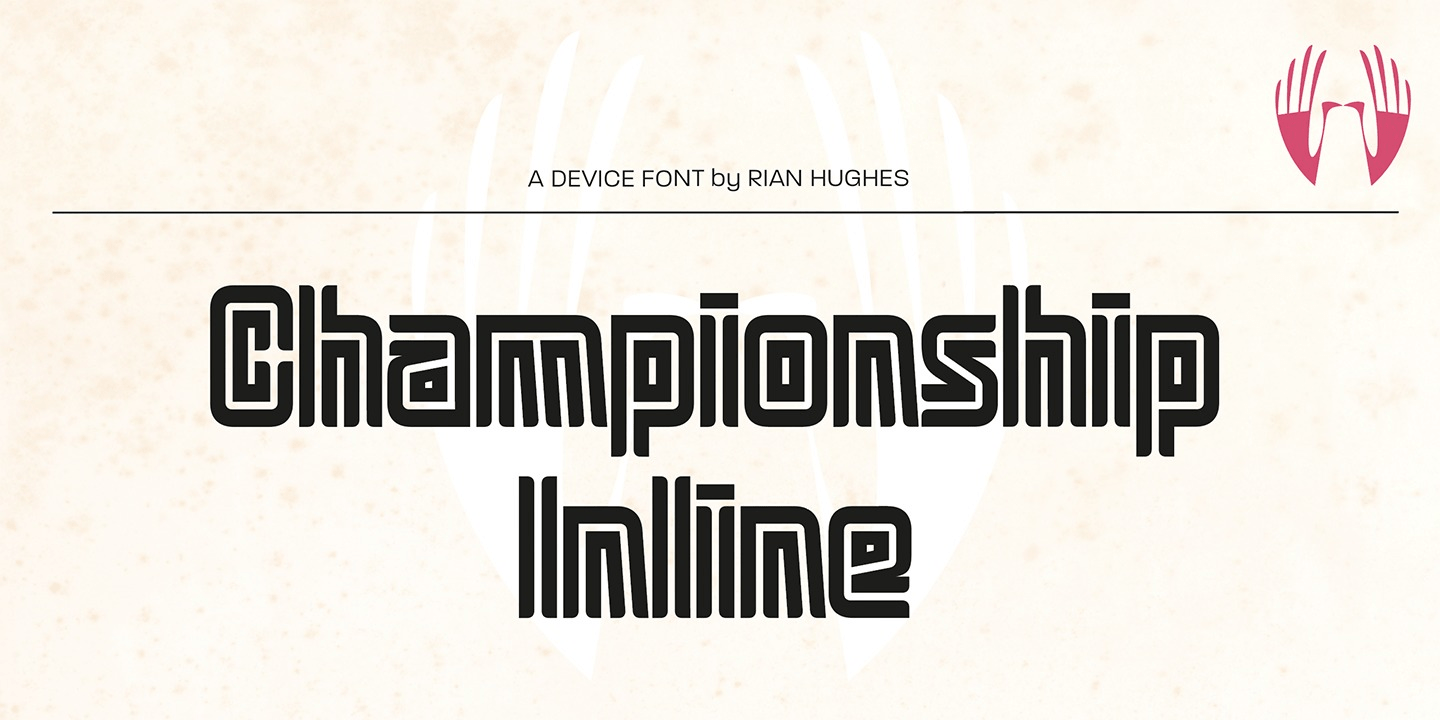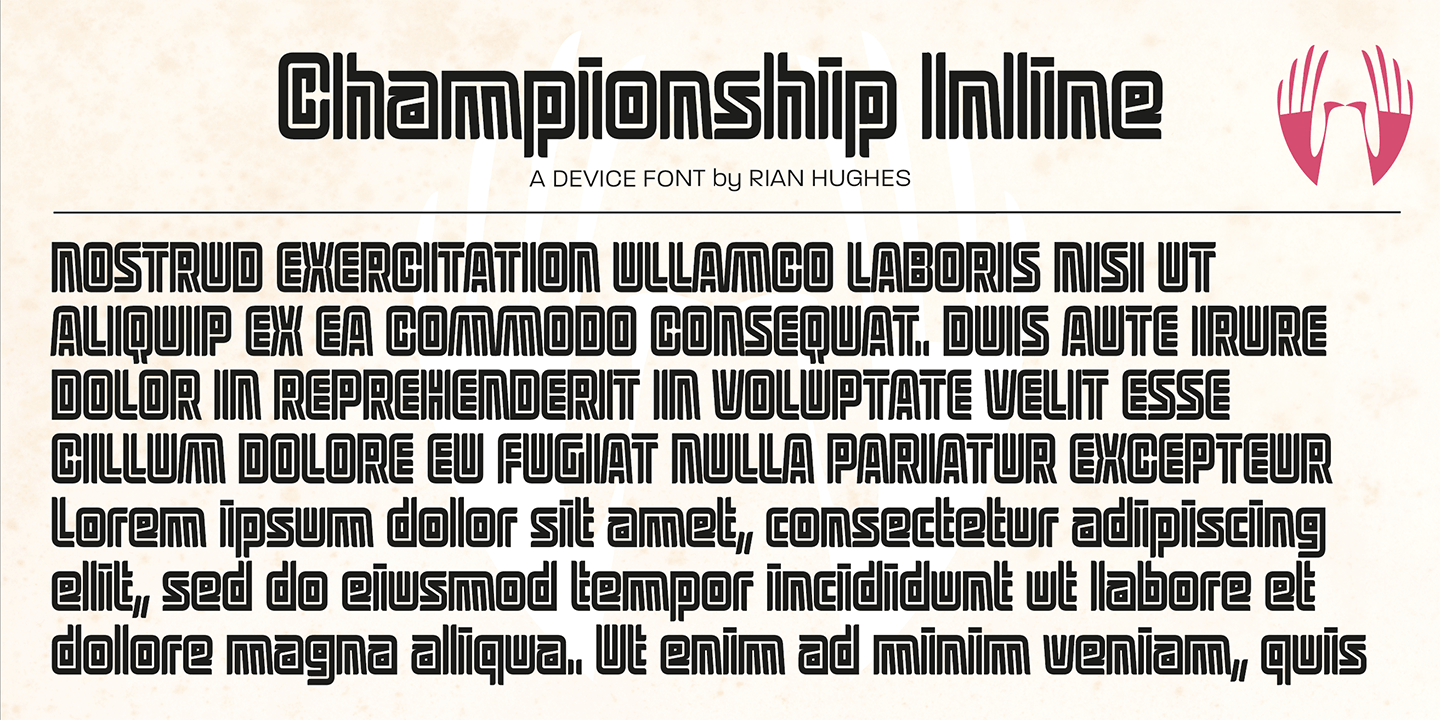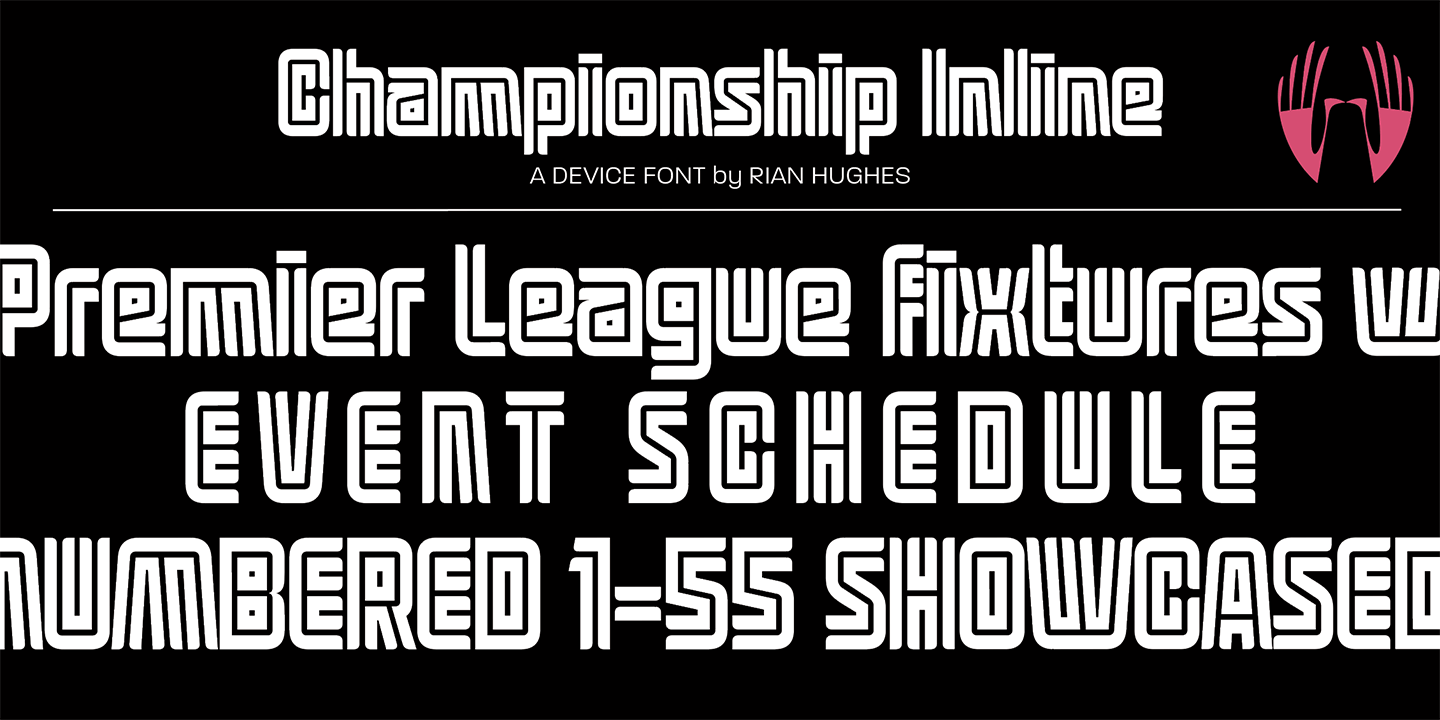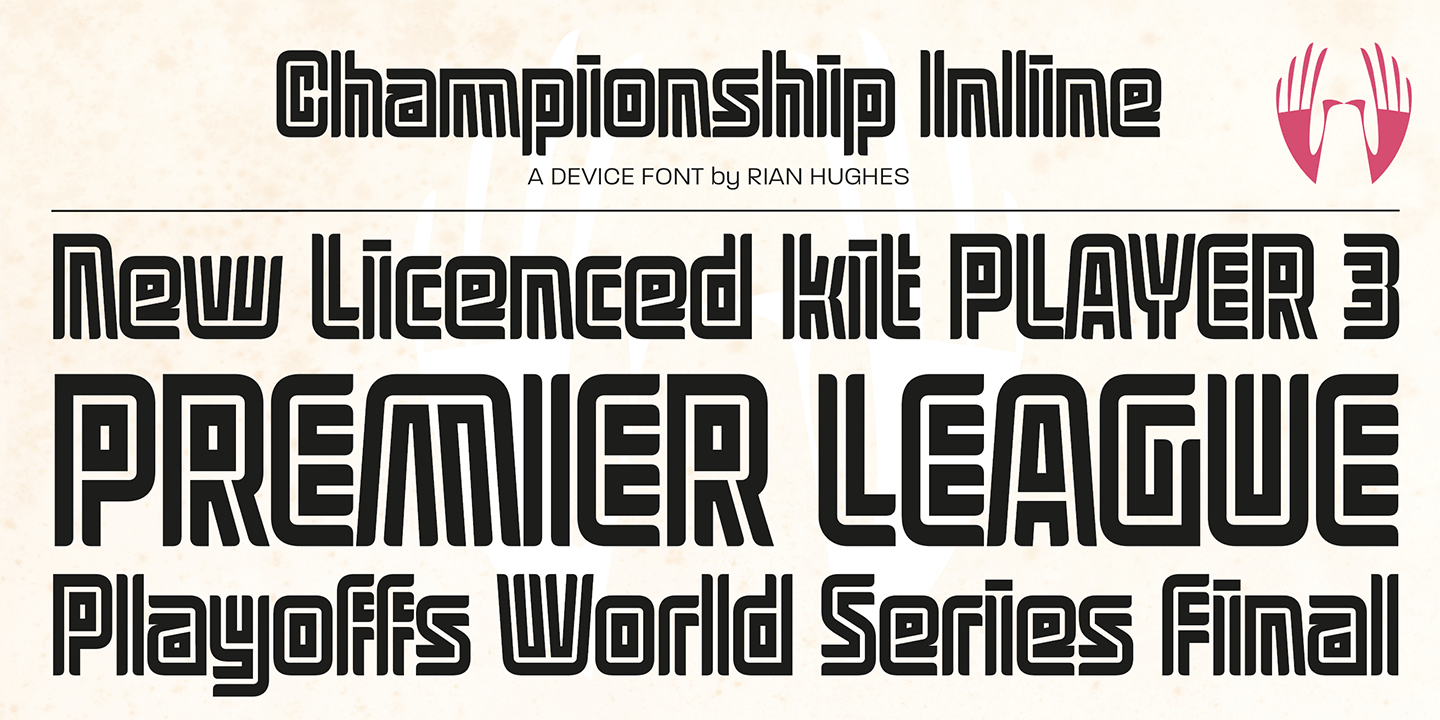
Championship Inline
About Championship Inline
A punchy heavy sans suitable for headlines that require impact with character. The inline imparts a celebratory tone reminiscent of sport jerseys, car marques or ice-cream parlors.